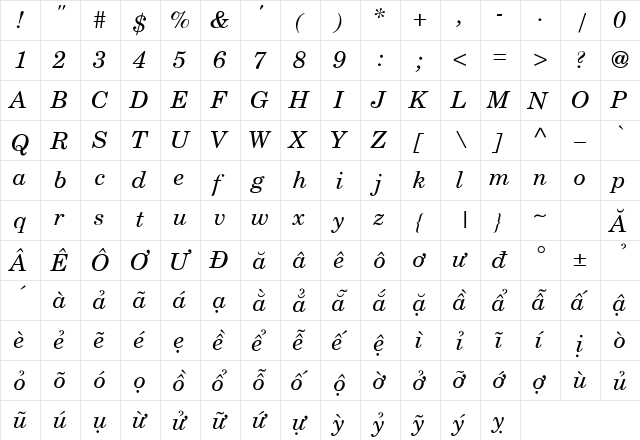
.VnCentury Schoolbook Italic
Design Context for .VnCentury Schoolbook Typeface
.VnCentury Schoolbook takes a measured approach to typography — its balanced proportions and neutral character make it a reliable workhorse for both digital and print work. Its italic angle brings a sense of urgency and motion to the letterforms.
Pro Tip: Use .VnCentury Schoolbook for emphasis, pull quotes, and subheadings where its slanted energy can add rhythm to the layout.